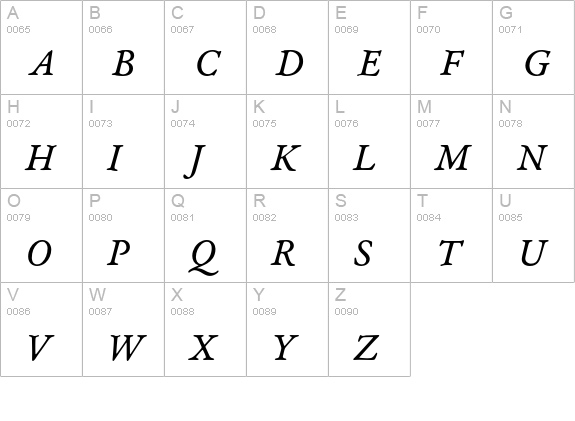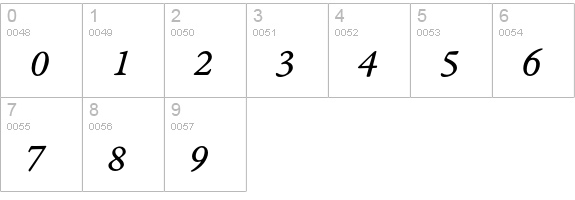
Garamond Premier Pro Italic Caption Font Details
Garamond Premier Pro Italic Caption is a distinctive, italic variant in the Garamond typeface family \xE2\x80\x94 well suited to design and typography projects.
Garamond Premier Pro Italic Caption font is a refined and elegant typeface that exudes sophistication and style. Its slanted italic design adds a touch of flair and distinction to any text. Perfect for use in captions, subtitles, and other small pieces of text, this font is ideal for adding emphasis and visual interest to your designs. What makes Garamond Premier Pro Italic Caption font even more appealing is that it is freely available to download at FontsMarket.com. This means you can access this beautiful typeface at no cost, making it a valuable addition to your font collection. Embrace the timeless beauty and versatility of Garamond Premier Pro Italic Caption font today by downloading it for free from FontsMarket.com.